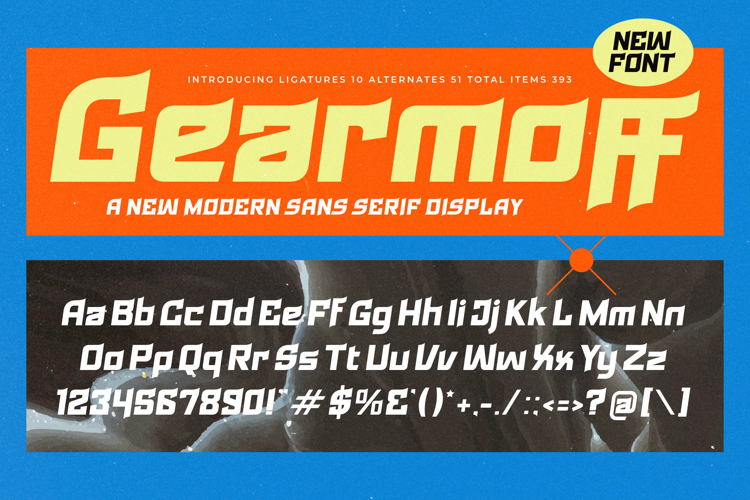
Gearmoff - Modern Sans Serif Display
Gearmoff - Modern Sans Serif Display is a radically slanted typeface engineered for maximum visual velocity. Its bold, geometric structure is infused with sharp, angular terminals that evoke speed, tension, and forward motion. This is not just a font; it is a declaration, ensuring your headlines command immediate attention and deliver an intense, futuristic aesthetic perfect for powerful display usage.